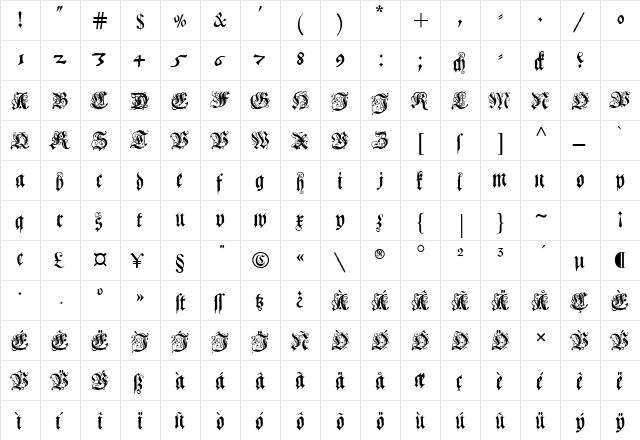
Coelnische Current Fraktur OsF Regular
Design Context for Coelnische Current Fraktur OsF Typeface
Coelnische Current Fraktur OsF channels the dramatic heritage of Fraktur and Gothic scripts, bringing a sense of historical gravitas to any design.
Well-suited to band logos, craft beer branding, tattoo lettering, and heritage-themed identities.
Font Pairing: Pair with a clean neutral sans-serif for body copy to let Coelnische Current Fraktur OsF's character lead without overwhelming the composition.
Pro Tip: Use Coelnische Current Fraktur OsF sparingly at large sizes. Even a single word set in blackletter can define the visual register of an entire design.